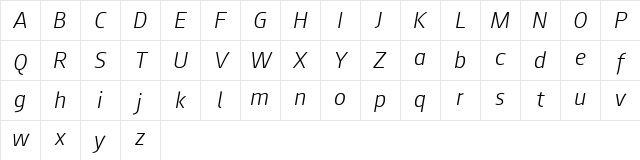
August Sans Red Light Italic
Foundry: Ingo Zimmermann ingoFonts Augsburg
Designer: Ingo Zimmermann
Design Context for August Sans Red Light
August Sans Red Light is a composed and adaptable typeface that performs quietly and consistently across a wide range of design contexts. The slanted form adds forward momentum and visual energy. Its slender proportions lend an understated elegance to any composition.
Pro Tip: Use August Sans Red Light for emphasis, pull quotes, and subheadings where its slanted energy can add rhythm to the layout.
Who designed the August Sans Red Light Italic font?